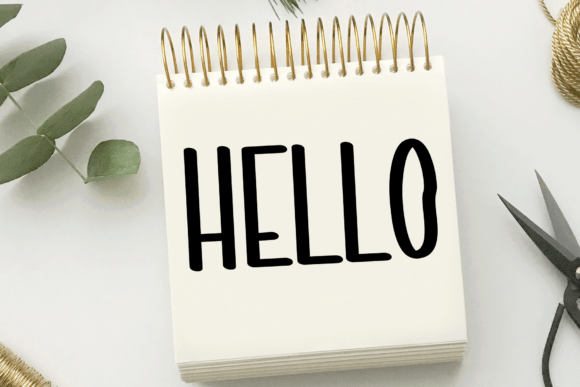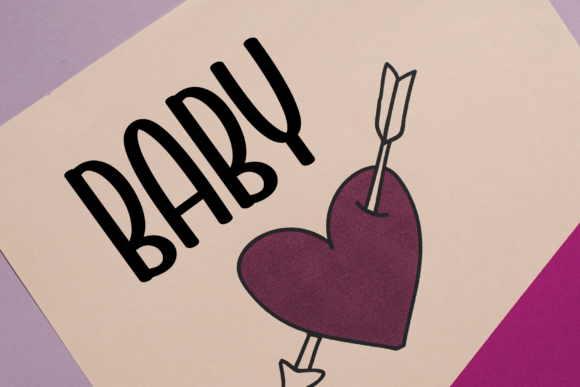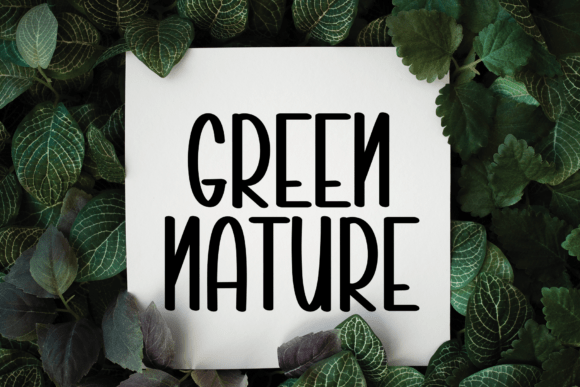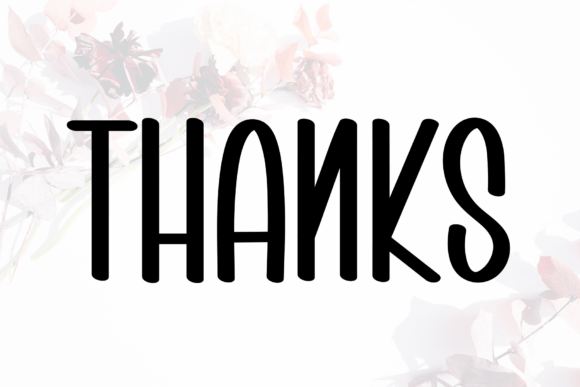
Introducing Brushy Notes Font: The Perfect Handwritten Touch for Your Designs
Are you looking for a font that adds a personal touch to your designs? Look no further than Brushy Notes Font, a charming handwritten font that exudes warmth and perfection. With its smooth strokes and organic lines, Brushy Notes is the perfect choice for designers and crafters seeking to create unique and captivating visual content.
The Characteristics of Brushy Notes Font
Brushy Notes Font is a beautifully crafted handwritten font that boasts a range of characteristics that make it stand out from the rest. Its smooth strokes and organic lines create a relaxed atmosphere, perfect for designs that require a personal and approachable feel. The font’s charming and whimsical nature makes it ideal for a variety of design projects, from branding and invitations to social media graphics and more.
What Makes Brushy Notes Font So Versatile?
One of the key benefits of Brushy Notes Font is its versatility. This font can be used in a wide range of design projects, including:
- Branding: Add a personal touch to your brand’s identity with Brushy Notes Font. Use it for logos, business cards, and other marketing materials to create a unique and memorable visual identity.
- Invitations: Create beautiful and eye-catching invitations for special occasions, such as weddings, birthdays, and baby showers.
- Social Media Graphics: Use Brushy Notes Font to create engaging social media graphics, including quotes, promotions, and announcements.
- Packaging: Add a personal touch to your product packaging with Brushy Notes Font. Use it for labels, tags, and other packaging materials to create a unique and eye-catching design.
Why Choose Brushy Notes Font?
So why choose Brushy Notes Font over other handwritten fonts? Here are just a few reasons:
- Unique and Handcrafted: Brushy Notes Font is a handcrafted font that offers a unique and personal touch to your designs.
- Easy to Read: The font’s smooth strokes and clear lines make it easy to read, even at small sizes.
- Highly Versatile: Brushy Notes Font can be used in a wide range of design projects, from digital designs to print materials.
- Support for Multiple Languages: Brushy Notes Font supports multiple languages, making it a great choice for designers working on international projects.
Tips for Using Brushy Notes Font
Here are a few tips for using Brushy Notes Font in your designs:
- Pair it with Other Fonts: Brushy Notes Font pairs well with other fonts, including serif and sans-serif fonts. Experiment with different font combinations to find the perfect look for your design.
- Use it for Headlines and Titles: Brushy Notes Font is perfect for headlines and titles, where its bold and expressive nature can shine.
- Add a Personal Touch: Use Brushy Notes Font to add a personal touch to your designs. Add handwritten notes, signatures, or other personal elements to make your designs more unique and engaging.